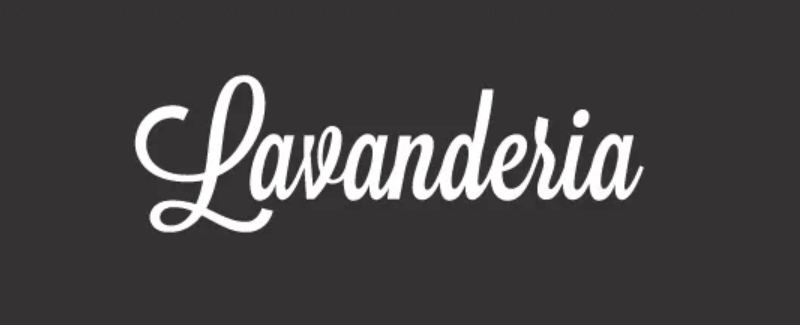
Lavanderia font has its formal beauty and after that, this font family contains three primary styles that are namely regular, delicate, and sturdy, and these
If you are in search of a calligraphic typeface them you might end your search here because here is the Lavanderia Font that is designed by James T.Edmondson. This typeface contains 291 glyphs. After all of that this is an eye-catching typeface.
Lavanderia font has its formal beauty and after that, this font family contains three primary styles that are namely regular, delicate, and sturdy, and these styles when used with the styling of tungsten font provide great results.
Besides the three weights, this typeface also has OpenType features. this typeface is based on lettering found on Laundromat windows. Lavanderia font is great for its use inside circuits.
Lavanderia is the script typeface that was designed by James T. Edmondson.
Of course you can use the Lavanderia for your logo as well as all other graphic designs projects.